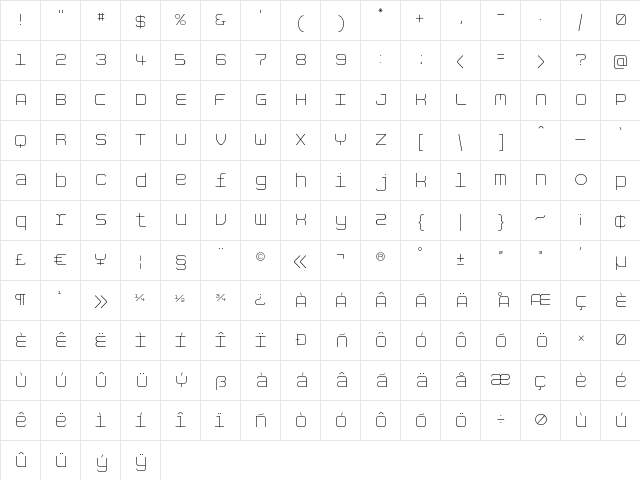
Aspirin-Refill-Halfdose Regular
Design Context for Aspirin-Refill-Halfdose Typeface
Aspirin-Refill-Halfdose takes a measured approach to typography — its balanced proportions and neutral character make it a reliable workhorse for both digital and print work.